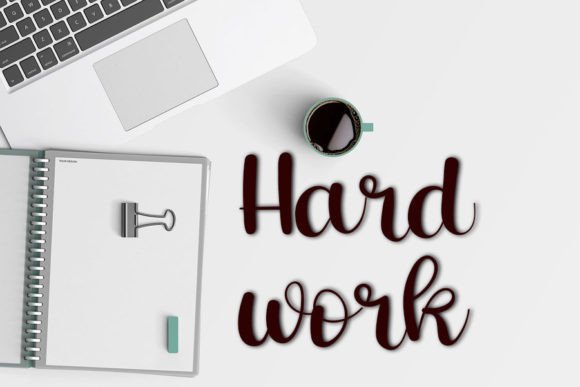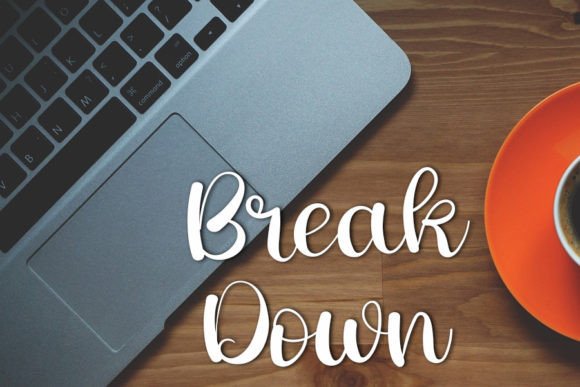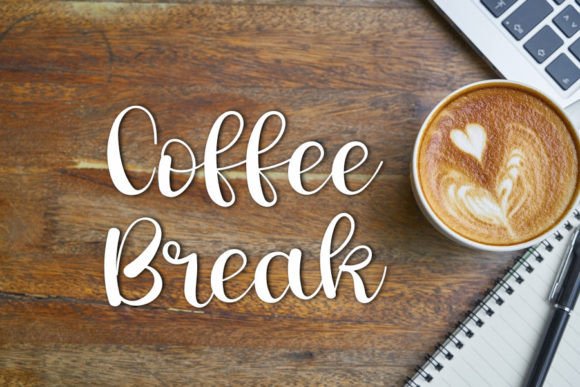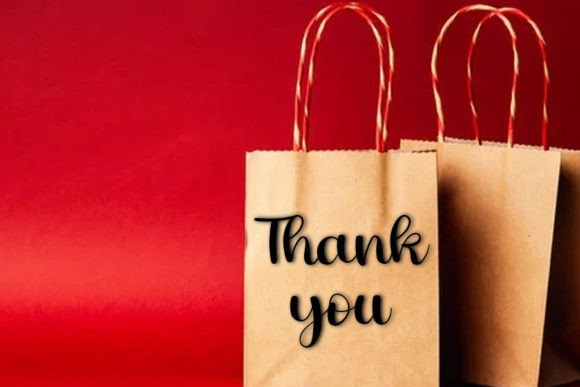
The Perfect Recipe for Your Design: Biscuits Font
As a designer, have you ever found yourself staring at a blank canvas, trying to conjure up the perfect idea for your next project? The pressure to create something unique and captivating can be overwhelming. But what if I told you that the secret ingredient to elevating your designs lies in a beautiful and versatile font – the Biscuits Font.
This delightful font is a must-have for any designer looking to add a touch of elegance and sophistication to their work. Whether you’re creating a YouTube banner, a wedding invitation, or a company logo, the Biscuits Font is the perfect accompaniment to bring your vision to life. Its simplicity and uniqueness make it an invaluable asset for any designer looking to take their work to the next level.
Biscuits Font Key Features
- Character Set: The font includes a comprehensive set of characters, including uppercase and lowercase letters, numbers, punctuation marks, and special characters.
- Unique Characteristics: Biscuits Font features a unique, hand-drawn design with subtle imperfections, giving it a warm and inviting feel.
- Font Style: The font is available in regular, italic, bold, and bold italic styles, providing flexibility for a wide range of design applications.
- Font Metrics: Biscuits Font has a x-height of 500, an average stem width of 300, and a cap height of 700, making it well-suited for body text and display typography.
Biscuits Font Review
As a designer, I was excited to try out the “Biscuits Font” and see what it had to offer. Overall, I’d say it’s a solid choice for certain projects, but it also has some limitations.
- ✨ Unique and playful style that’s perfect for food-related brands or websites.
- ✨ Well-suited for headings and titles, adding a touch of whimsy to your design.
- ✨ Easy to read, even at smaller font sizes.
- ⚠️ Limited character set, which may not be suitable for longer blocks of text.
- ⚠️ May not be the best choice for formal or professional brands, as it can come across as too casual.
- ⚠️ Not as versatile as some other fonts, which may limit its use in different design contexts.
In terms of overall impression, I’d say “Biscuits Font” is a fun and playful addition to any design project. While it may not be the best choice for every project, it’s definitely worth considering for those looking for a unique and eye-catching font. Just be mindful of its limitations and use it accordingly.
Getting the Most Out of Biscuits Font
To get the most out of the Biscuits Font, use it in combination with bold or italic text to create visual interest.
Experiment with different font sizes and colors to create a unique look.
The Biscuits Font is perfect for:
Creatives looking for a unique and playful font.
Designers who want to add a touch of whimsy to their designs.
Anyone looking to add a fun and quirky touch to their text.
Alternatives to Biscuits Font for Designers
Great Vibes Font is a beautiful, modern script font perfect for adding a touch of elegance to your designs. It’s ideal for use in branding, invitations, and other creative projects where a unique and eye-catching font is required. Compared to Biscuits Font, Great Vibes Font has a more refined and sophisticated look, making it a great choice for high-end designs.
Pacifico Font is a beautiful, cursive font inspired by the Pacific coast. It’s perfect for use in designs where a relaxed, beachy vibe is required. Compared to Biscuits Font, Pacifico Font has a more laid-back and casual feel, making it a great choice for designs related to travel, leisure, and entertainment.
Carolyna Pro Font is a elegant, modern script font perfect for use in high-end designs. It’s ideal for branding, packaging, and other creative projects where a sophisticated and luxurious font is required. Compared to Biscuits Font, Carolyna Pro Font has a more refined and polished look, making it a great choice for designs that require a touch of elegance.